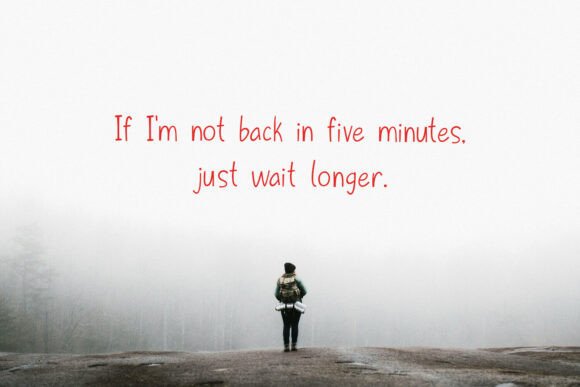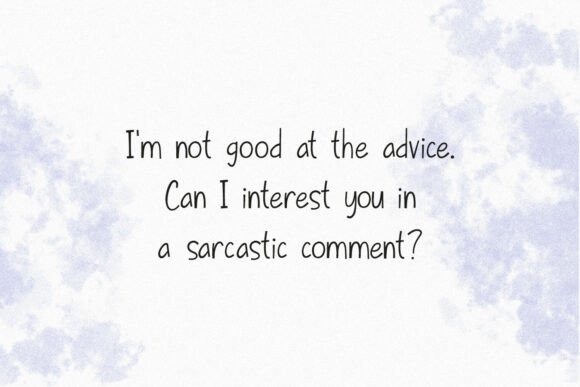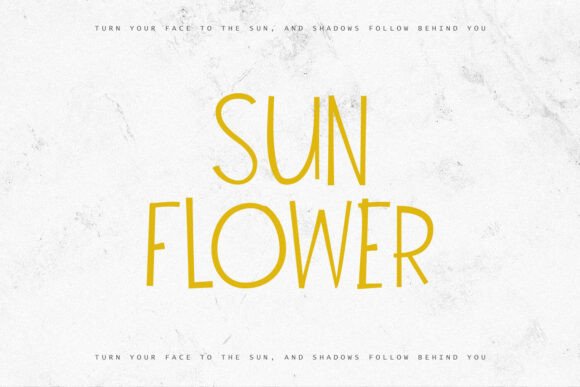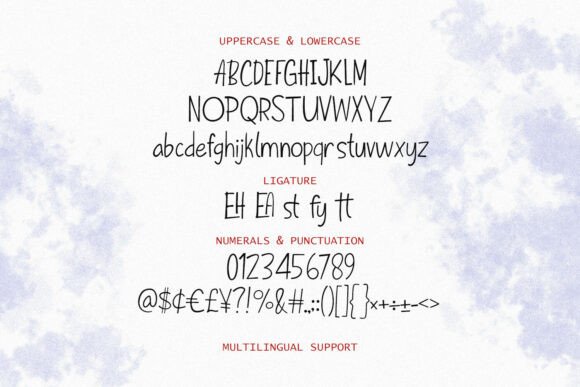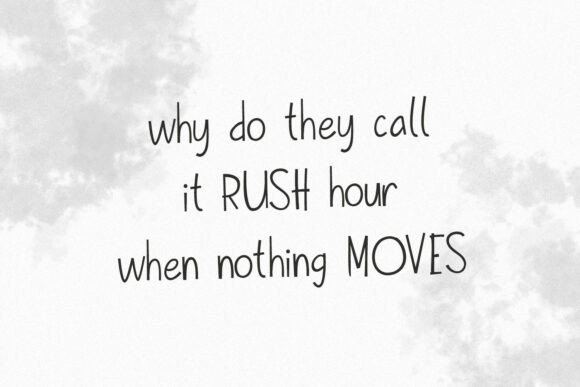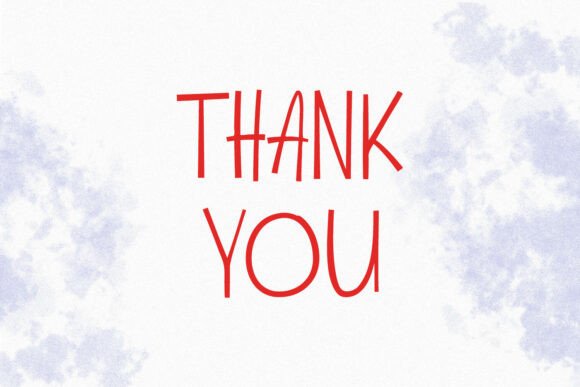
Introduction to Cestofy Font
As a designer, there’s nothing quite like the thrill of bringing a creative project to life. You’ve got a blank canvas, a vision in your mind, and a wealth of possibilities at your fingertips. But sometimes, all it takes is the right font to elevate your design from good to great. That’s where the Cestofy Font comes in – a free download that’s about to become your new best friend.
With its expressive, handwritten feel and subtle ligatures, the Cestofy Font adds a playful touch to even the most straightforward designs. Whether you’re working on a logo, social media graphics, or a movie title, this font is sure to make your project stand out. And with its transparent background and high-quality design, you can trust that your final product will be nothing short of stunning.
Key Features of Cestofy Font
- High-quality, professional font design suitable for creative projects
- Features a unique, modern aesthetic with intricate details and textures
Honest Review: Cestofy Font
As a designer, I’m always on the lookout for high-quality design resources to elevate my creative projects. Recently, I stumbled upon the Cestofy Font, and I’m excited to share my honest review.
What works well: ✨ The Cestofy Font is a versatile and modern script font that’s perfect for adding a touch of elegance to your designs. The high-quality vector format ensures that the font looks sharp and crisp, even when used at large sizes. The transparent background option is also a nice touch, allowing me to easily combine the font with other design elements.
What doesn’t work well: ⚠️ While the Cestofy Font is a great addition to any designer’s toolkit, I did encounter some limitations. The font is not as extensive as some other script fonts on the market, and the character set is somewhat limited. Additionally, the font is not optimized for web use, which can result in slower loading times.
Overall, I’m impressed with the Cestofy Font, and I would definitely recommend it to designers looking for a high-quality script font. While it may not be perfect, it’s a great resource to have in your toolkit, especially for free download.
- Modern and elegant design
How to Use Cestofy Font
Tips for Getting the Most Out of the Cestofy Font
Here are some tips for getting the most out of the Cestofy Font:
- Experiment with different font sizes and styles to create visually appealing designs.
- Use the font with a transparent background to create a sense of depth and dimension.
- Combine the Cestofy Font with other design elements, such as images and graphics, to create unique and eye-catching designs.
Common Use Cases for the Cestofy Font
The Cestofy Font is a versatile font that can be used in a variety of creative projects, including:
- Brochure design
- Business card design
Compared to Cestofy Font, Great Vibes has a more refined and polished look, making it ideal for projects that require a high-end feel.
What is the recommended resolution for using the Cestofy Font, and can it be used with a transparent background?